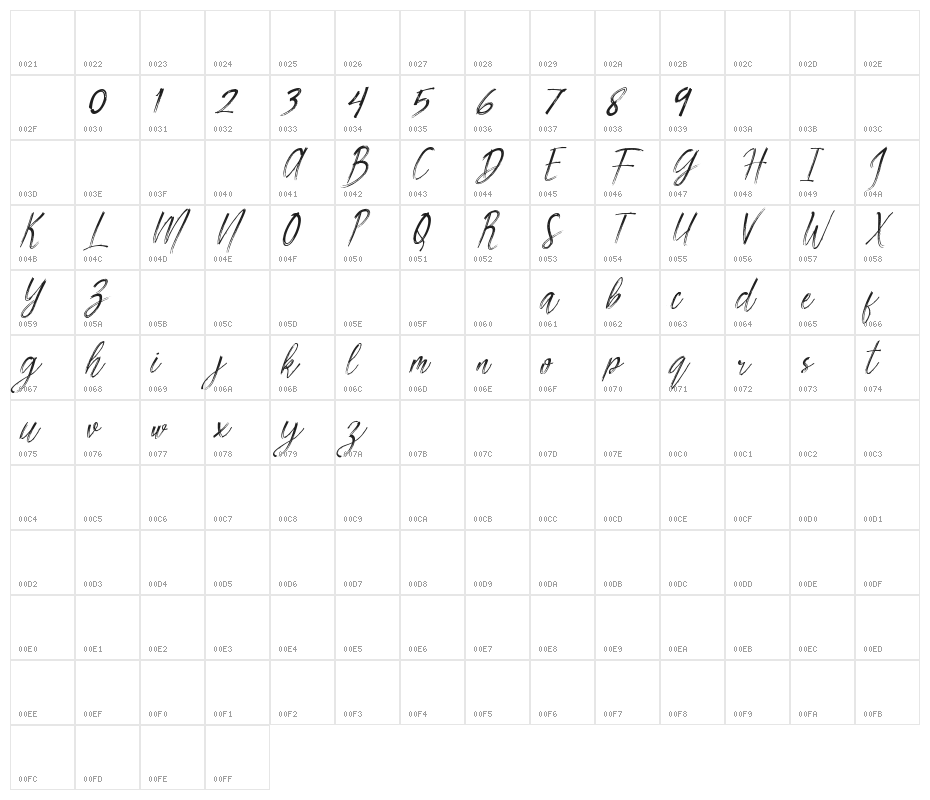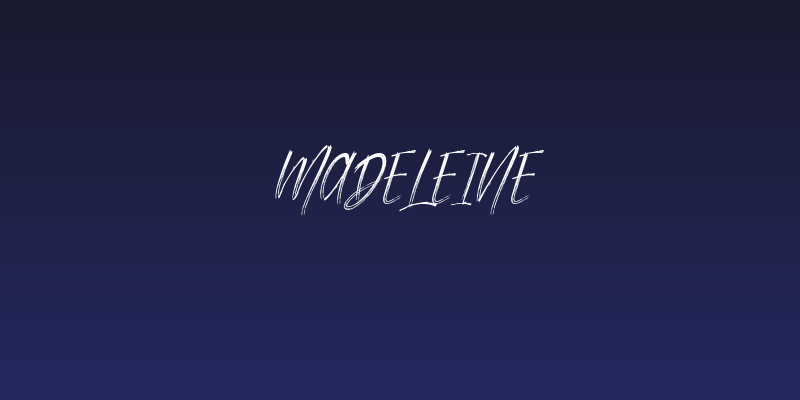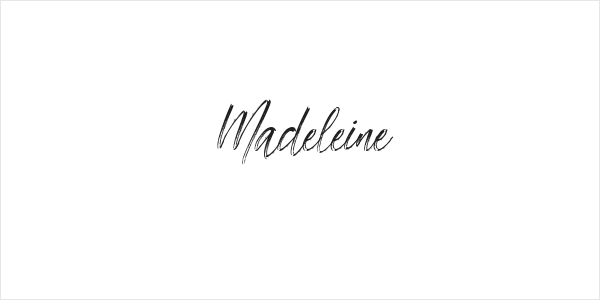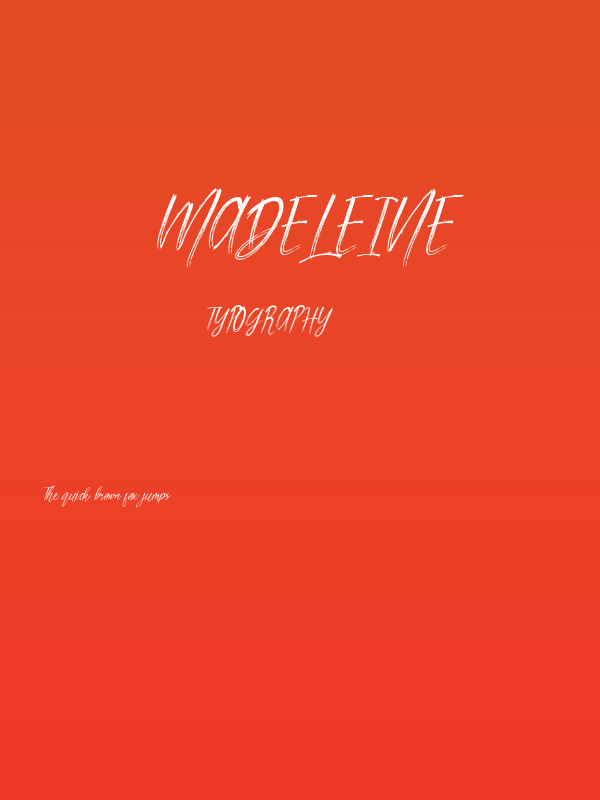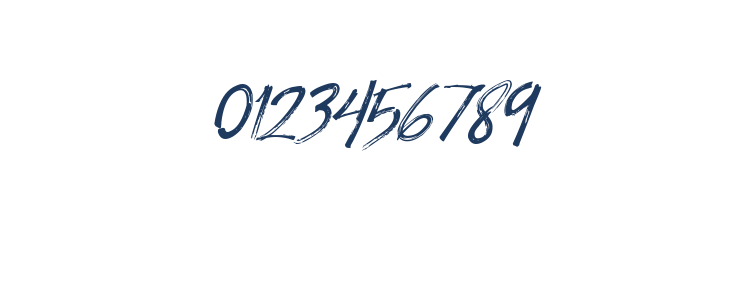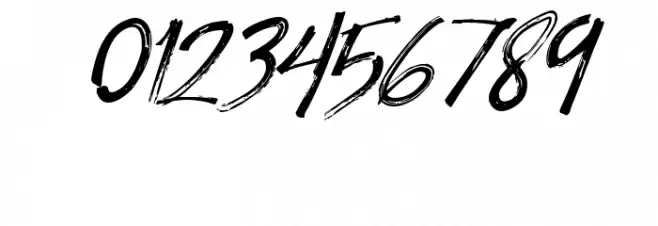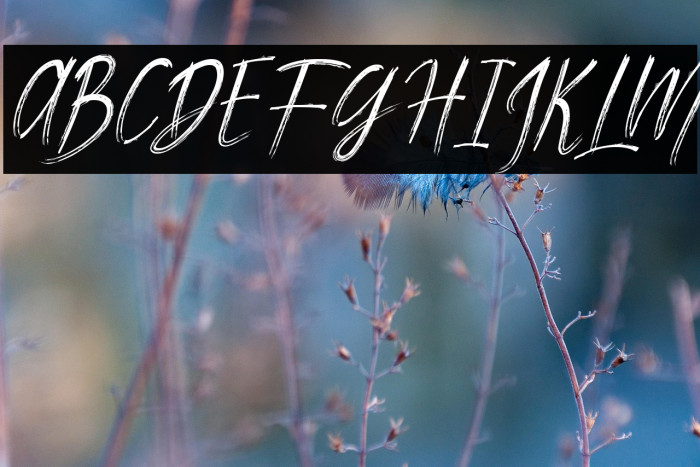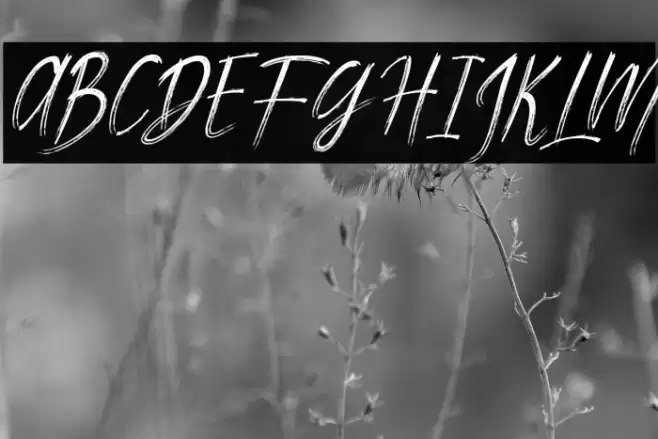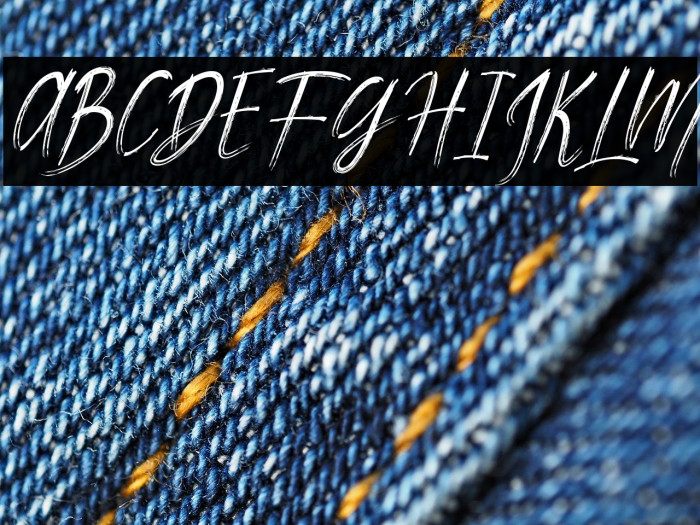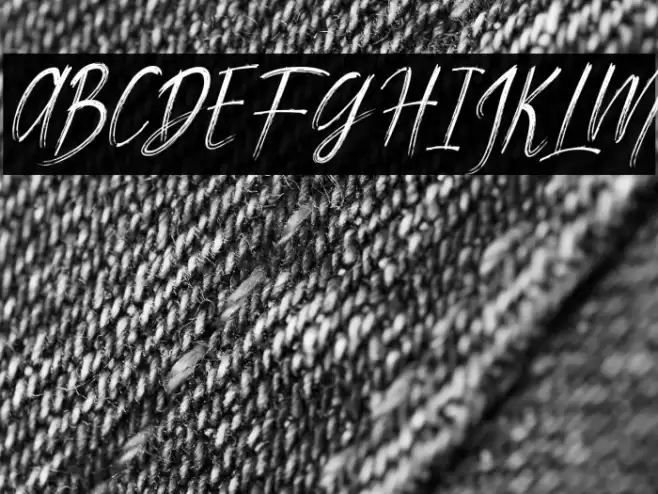
Madeleine Font
Madeleine Description
This font exhibits a dynamic and expressive handwritten style, characterized by its fluid and energetic strokes. The letters are slightly slanted, giving a sense of motion and spontaneity. The strokes vary in thickness, creating a lively contrast that adds depth and interest. The uppercase letters are bold and prominent, while the lowercase letters maintain a consistent flow, enhancing readability. Numbers and special characters are crafted with the same artistic flair, ensuring a cohesive look across all elements. This font is ideal for projects that require a personal touch or a creative edge.
| Use Case | Logos, Headlines, Artistic projects |
| Proposed Projects | Ideal for creative projects such as invitations, greeting cards, branding, and artistic posters. |